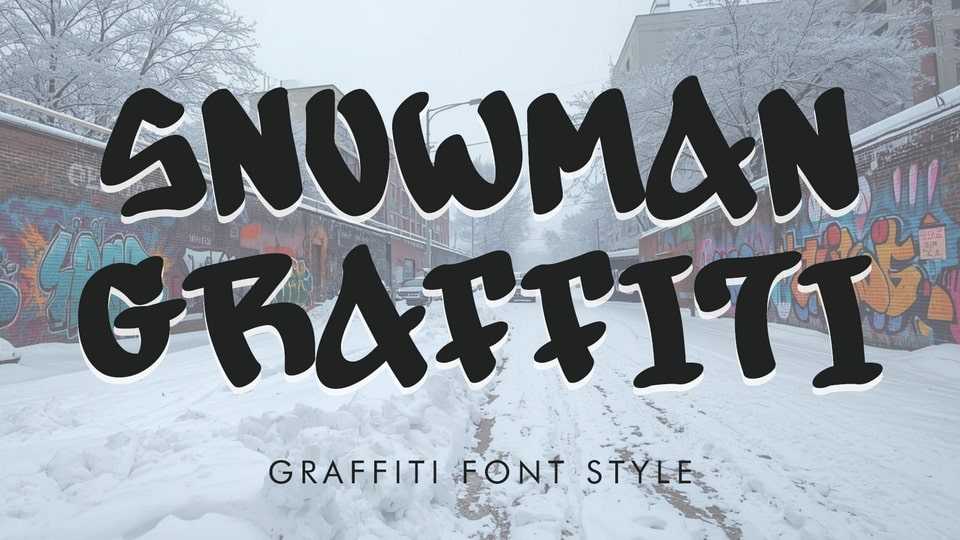
Download Snowman Graffiti font, a modern and bold graffiti typeface. It’s perfect for Christmas, Halloween, fall, autumn, winter, spring, and summer, graffiti, comics, movie titles